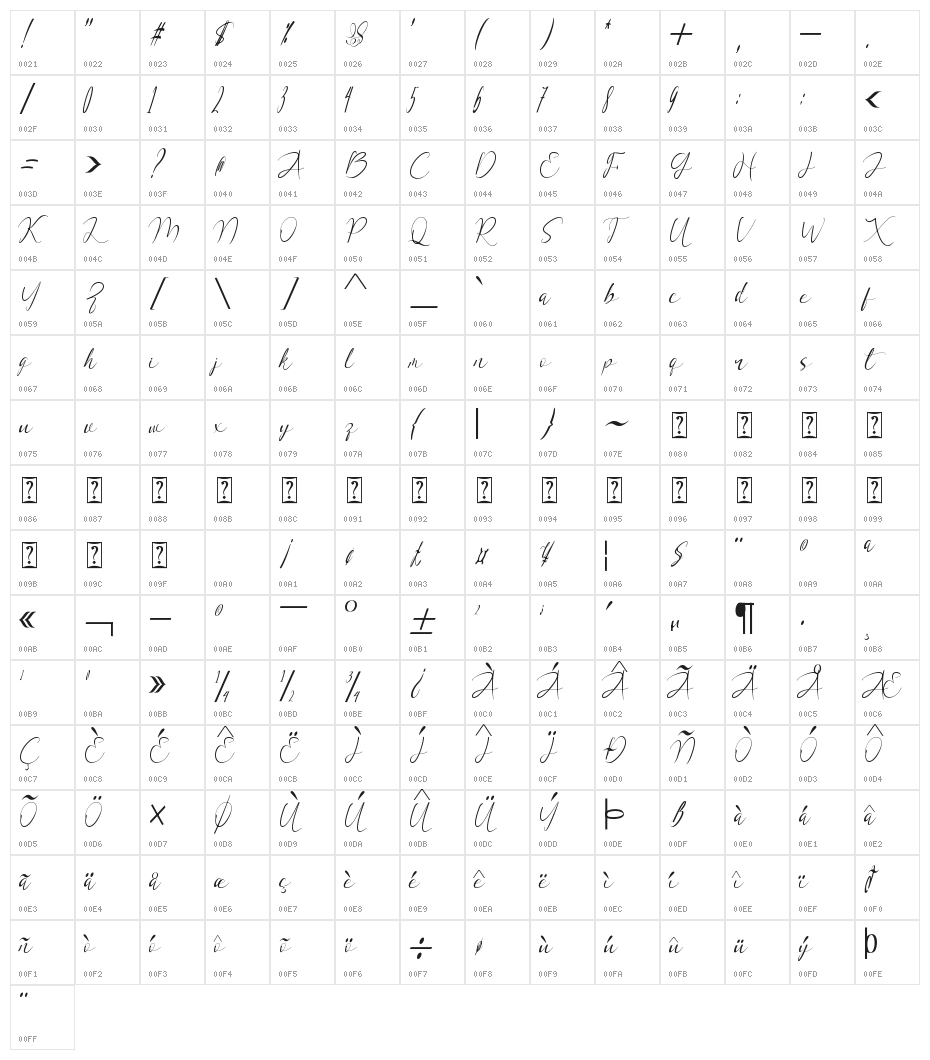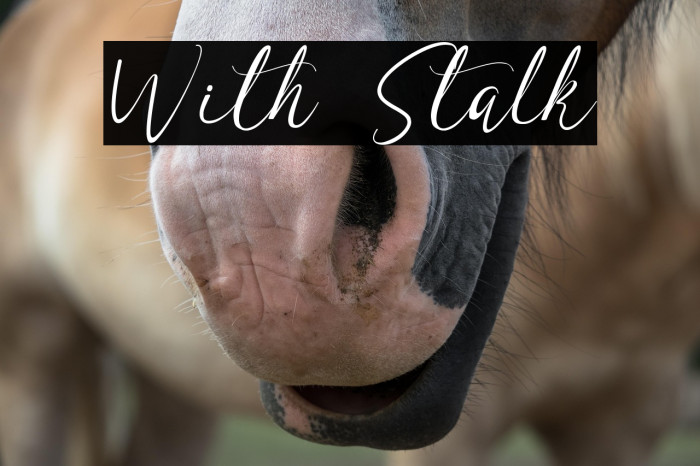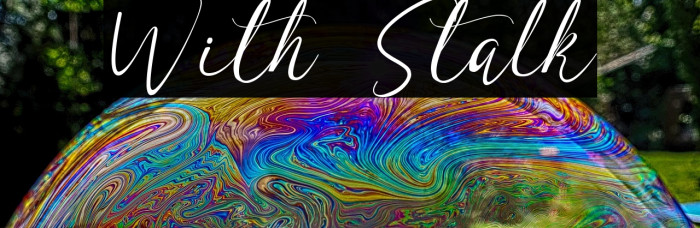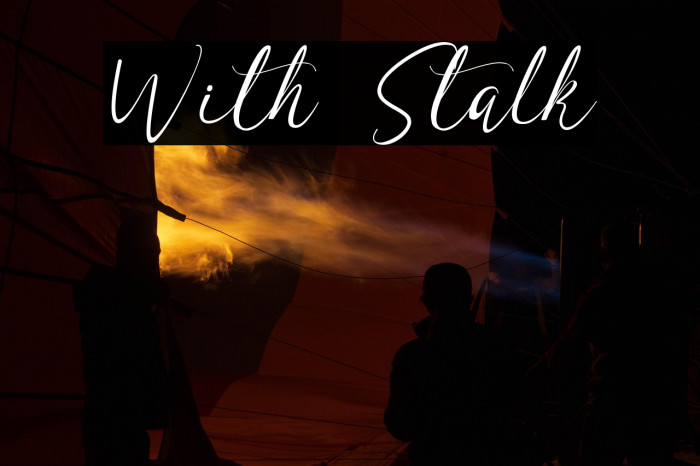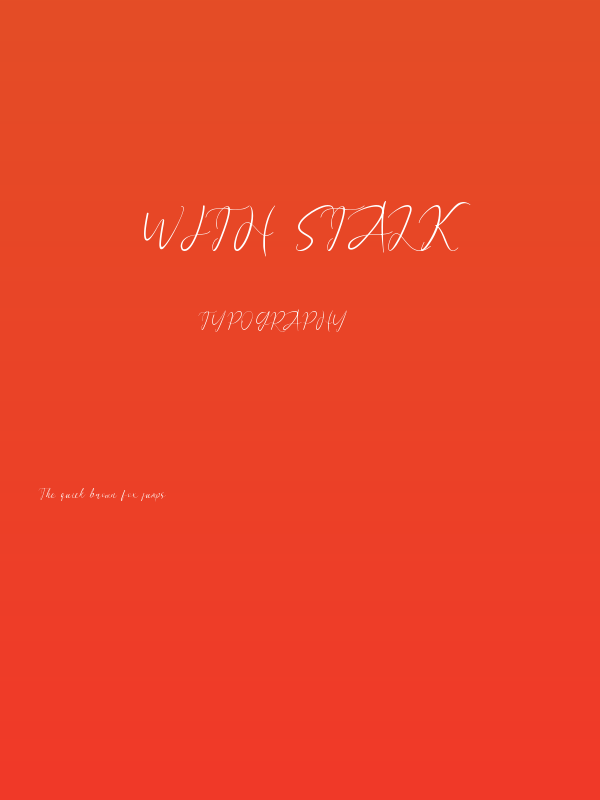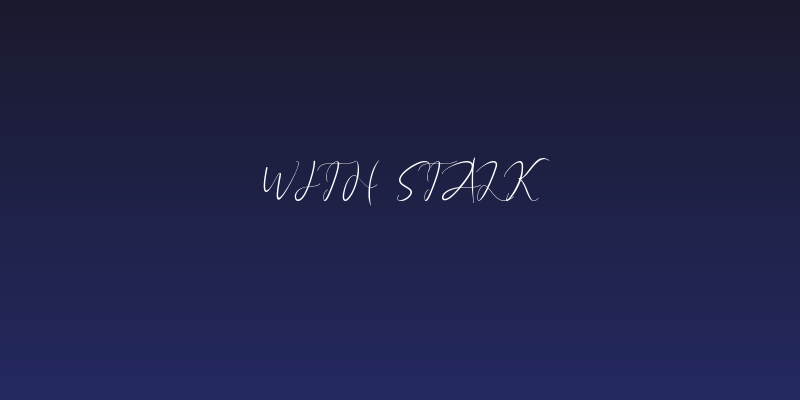
With Stalk Font
With Stalk Description
This elegant script font features fluid, flowing strokes that mimic the natural movement of handwriting. The characters are connected, creating a seamless and sophisticated appearance. The uppercase letters are ornate, with sweeping curves and loops, while the lowercase letters maintain a consistent style with subtle variations in stroke width. The numerals and special characters are designed to complement the letterforms, maintaining the overall aesthetic. This font exudes a sense of grace and refinement, making it ideal for formal and decorative applications.
| Overall Style | Elegant, Decorative |
| Use Case | Headlines, Invitations, Branding |
| Proposed Projects | Ideal for wedding invitations, elegant branding, personal stationery, and decorative headlines. |